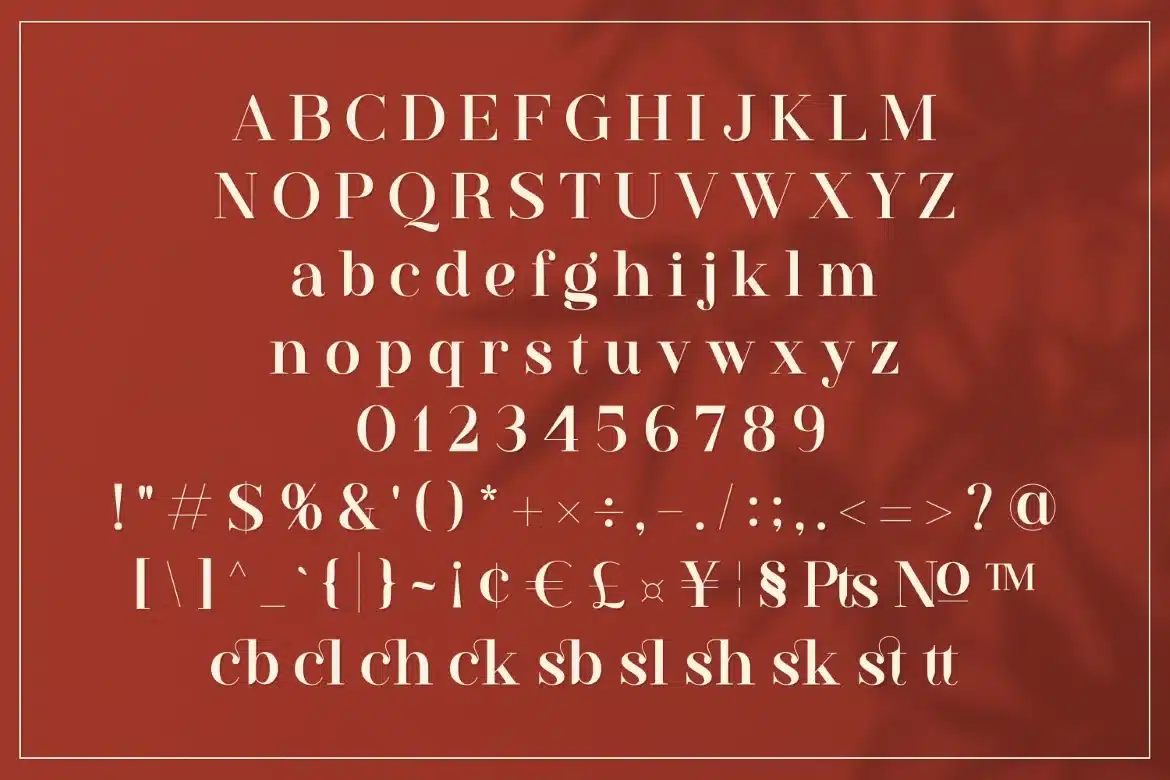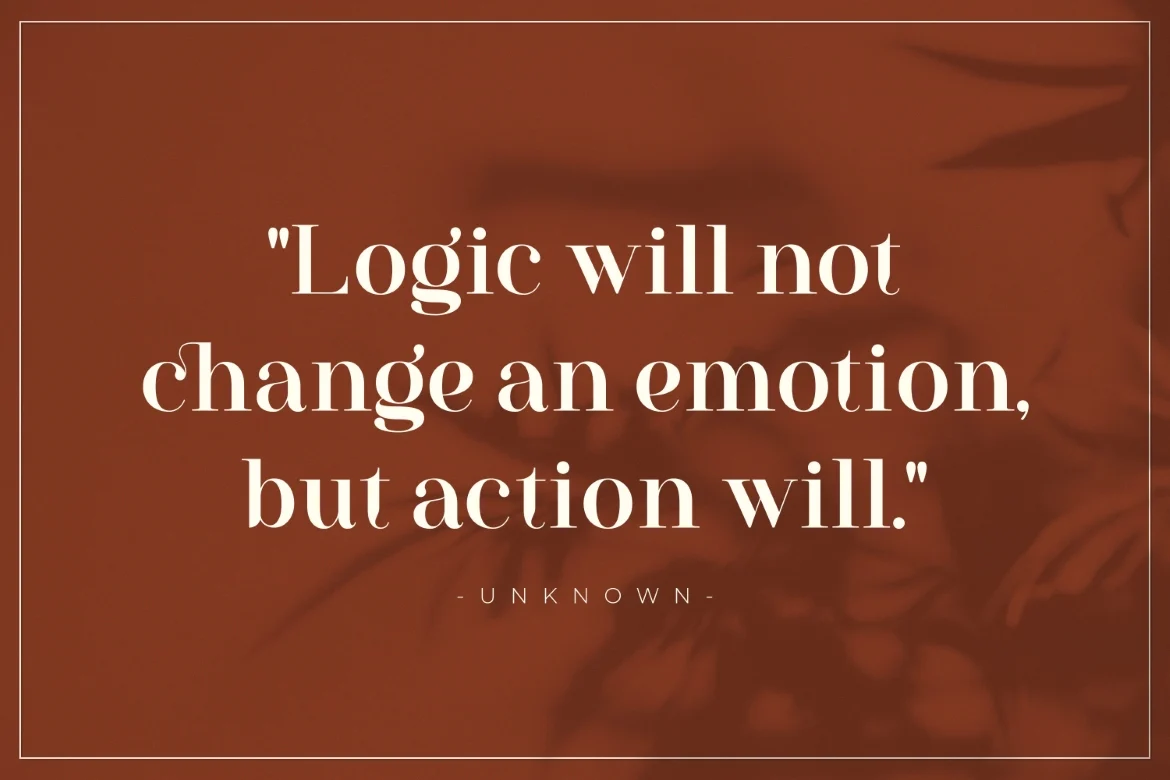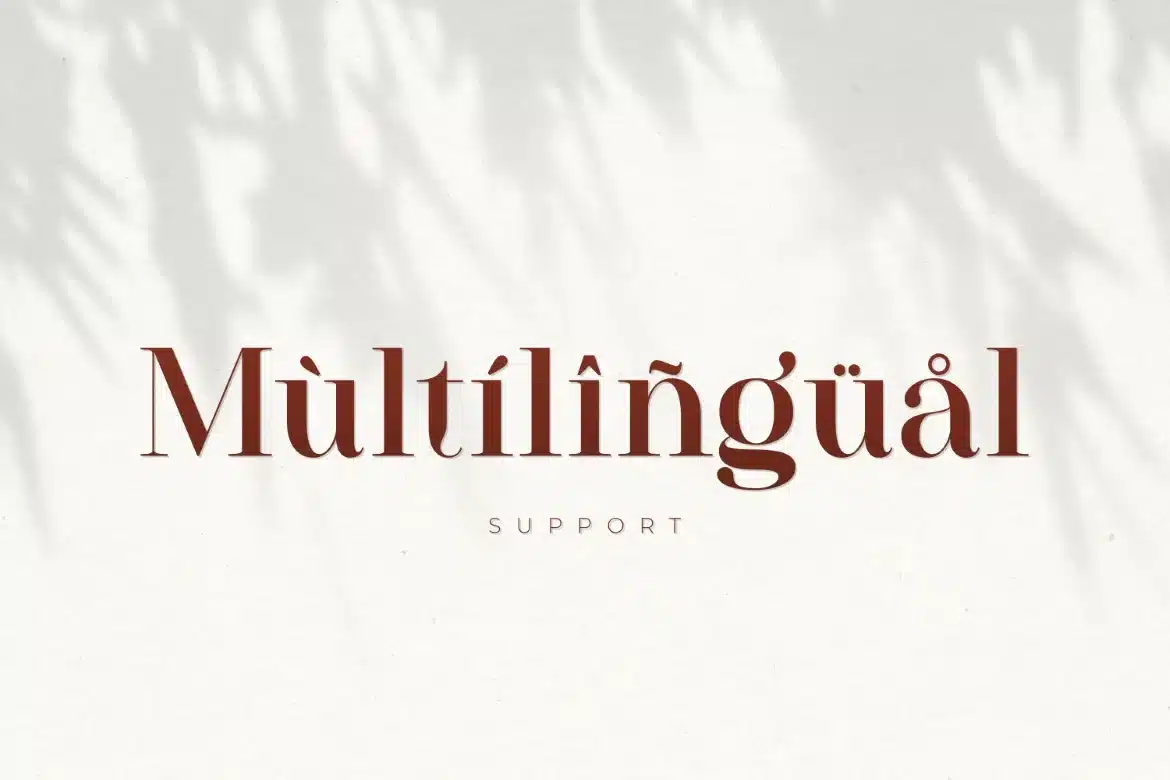
Westack – Modern Serif Font
Introducing Westack - Modern Display Serif inspired by the famous minimalist logo, perfect for the purposes of designing templates, brochures, videos, advertising branding, logos and more.
- International Accent
Fonts include multilingual support